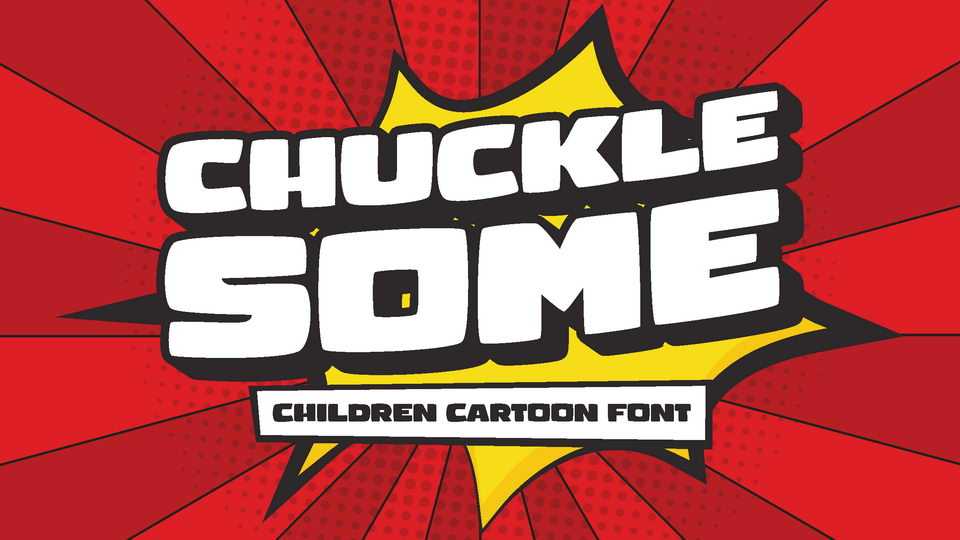
Download Chucklesome font, a bold, heavy, stand out, but with rounded corner and chubby shape typeface that sure is gonna make every word written will get an attention.